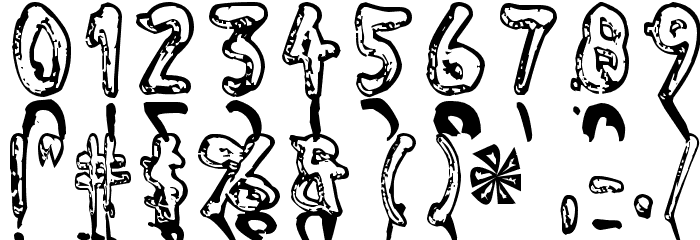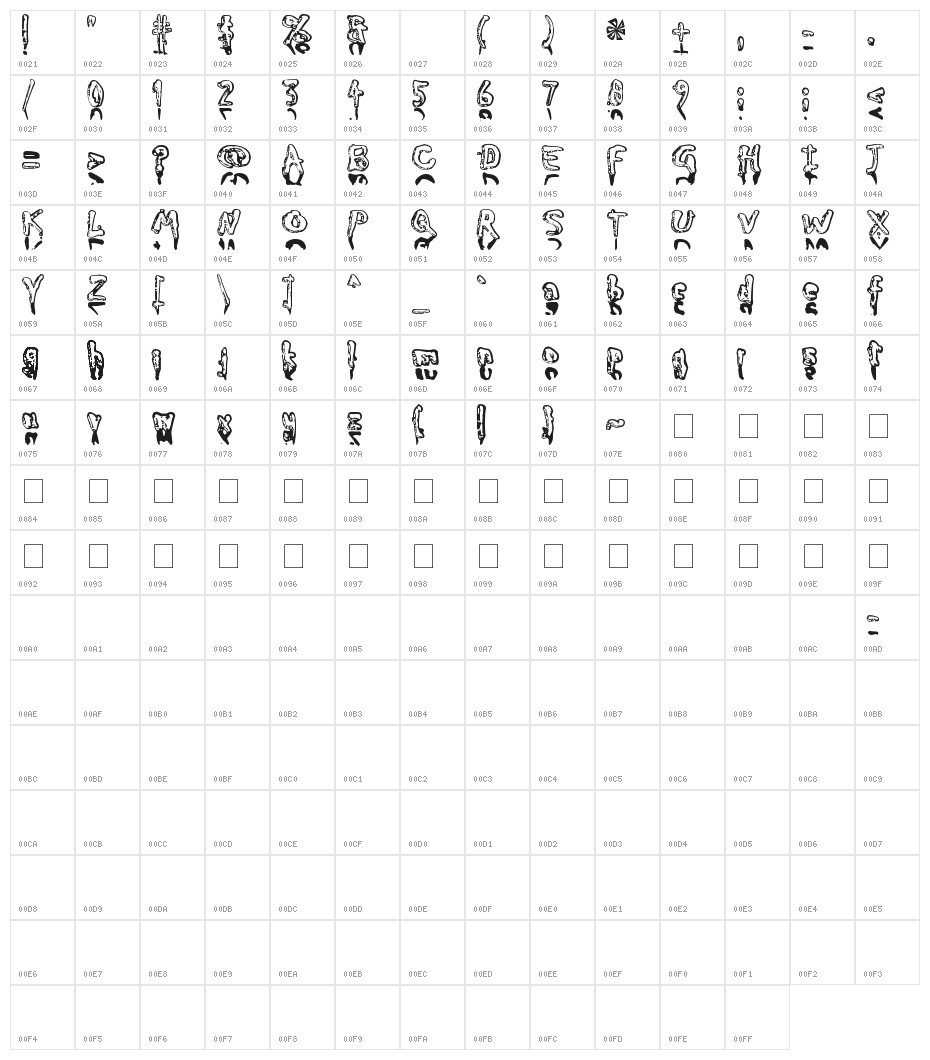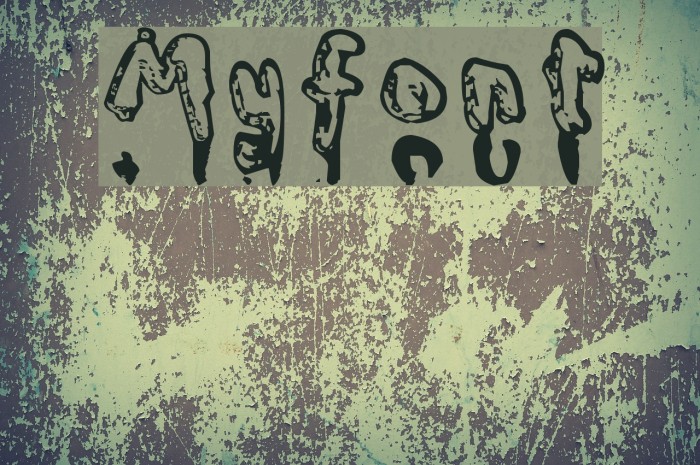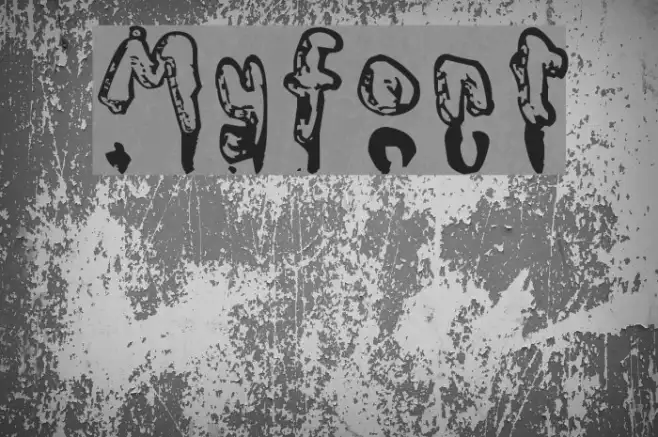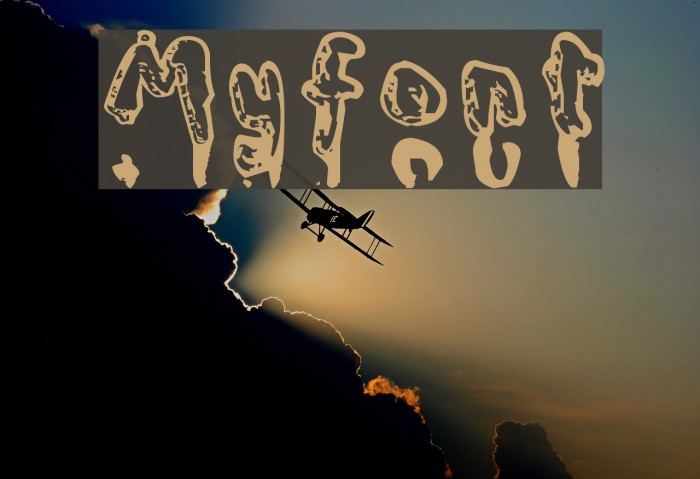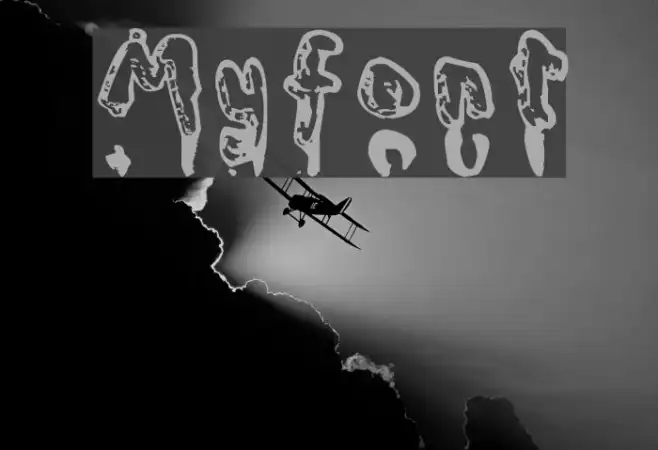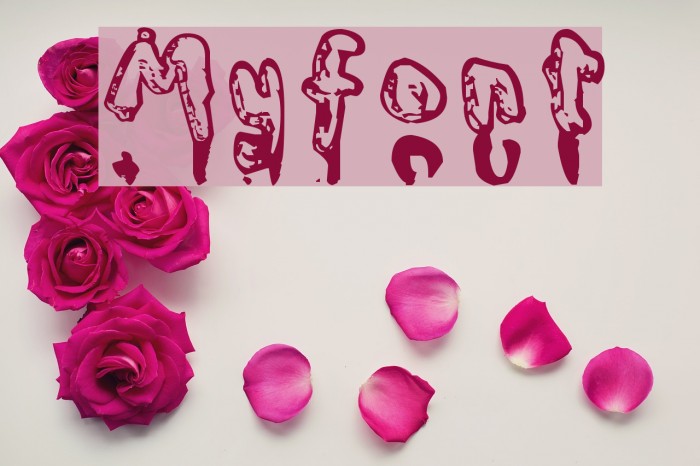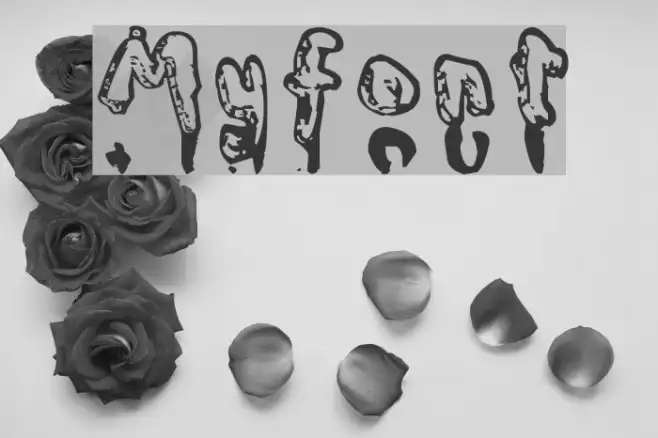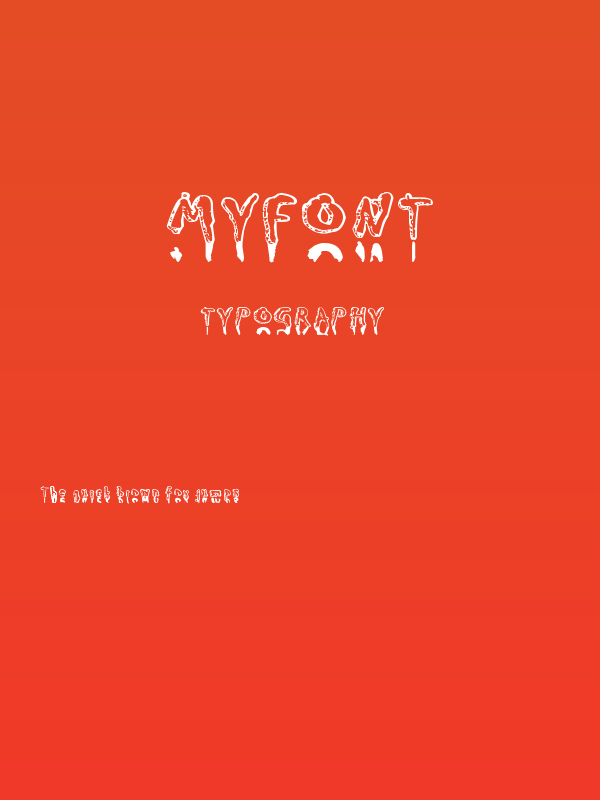
Myfont Font
Myfont Description
This font features a highly decorative and textured style, reminiscent of graffiti or urban art. The characters are bold and irregular, with a distressed appearance that gives them a rugged, edgy look. The uppercase and lowercase letters maintain a consistent theme of rough, hand-drawn lines, while the numbers and special characters follow suit with similar artistic flair. The font's unique design makes it stand out, with each character appearing as if it has been painted or drawn with a brush, adding to its dynamic and energetic feel.
| Overall Style | Urban, Graffiti, Artistic |
| Use Case | Logos, Posters, Headlines |
| Proposed Projects | Ideal for street art designs, music album covers, posters, and urban-themed branding. |